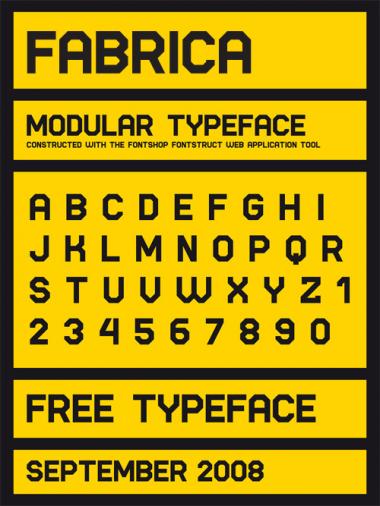
This level of simplicity and elegance takes skill. I love it. :)
I'm in agreement with thalamic's comment...as usual. Simple and clean.
You might want to consider a name change to avoid confusion with Emigre's trademarked font of the same name.
I've changed the name... now is FABRICA
A perfect neo-industrial font!
...I would consider experimenting with lowercase letters and diacritics to make the set perfect.
A simply superb font.
Add lowercase and Japanese and Russian and Portuguese and Turkish and Yakut/Sakha
what do you mean by "japanese"? there are three different alphabets, which one do you want???